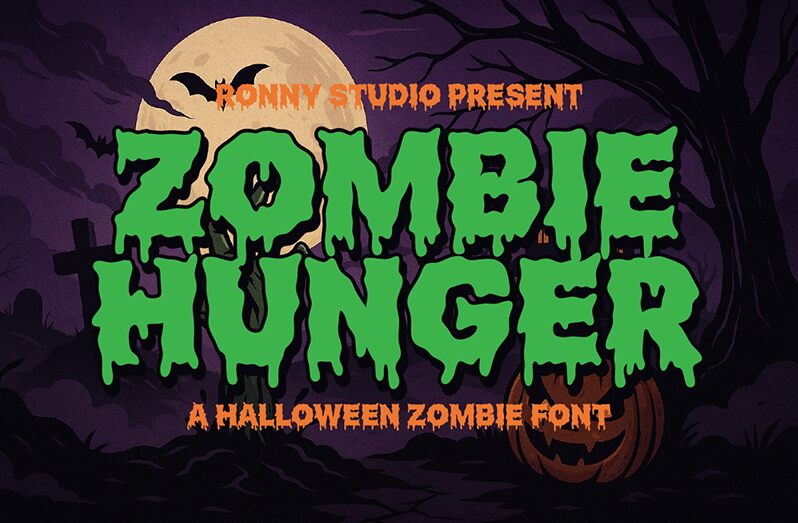
Zombie Hunger font by Ronny Studio is a free font that captures the eerie and unsettling elements of modern horror aesthetics. The typeface is grungy and dramatic, fitting perfectly into the world of Halloween-themed projects. Evoking a sense of decay, each character delivers a powerful and bold visual impact with its unique, edgy design.
Perfect for evocative posters, spooky invitations, or haunting book covers, Zombie Hunger can also elevate web designs, film title sequences, apparel, game interfaces, event promotions, and social media content. Integrate this thematic font into any project needing a touch of horror or energetic creativity.